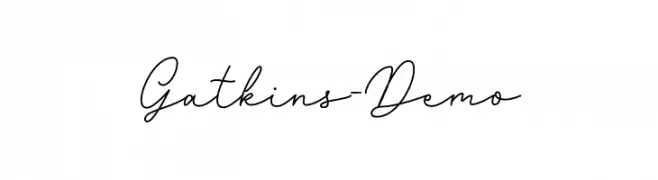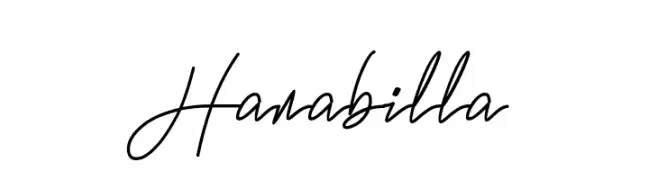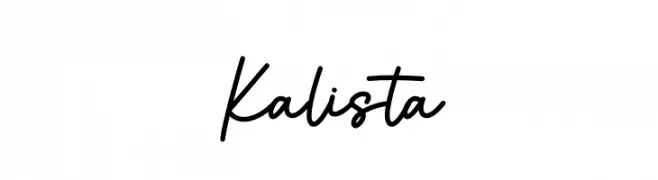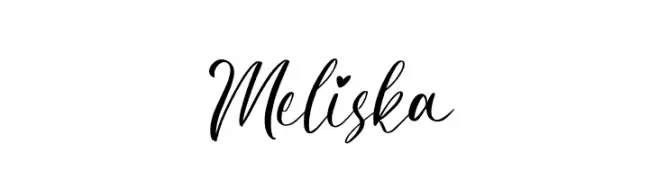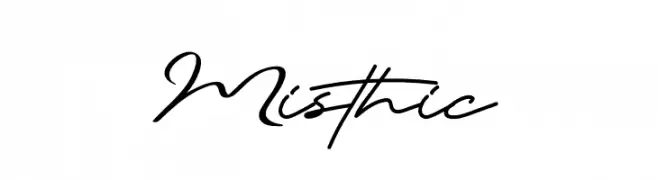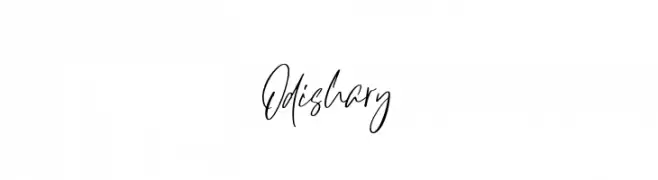
A fluid, cursive font with a natural handwriting style.
A lively, cursive font with a natural, handwritten feel.
A cursive, handwritten font with elegant, flowing lines and a natural feel.
A flowing, cursive font with a natural handwritten style.
A fluid and elegant script font with interconnected strokes, mimicking natural handwriting.
An elegant, flowing script font with natural handwriting style.
A smooth, flowing script font with a natural handwriting style.
A fluid, elegant script font with a natural handwritten style.
A graceful, cursive script font with a natural handwritten style.
A handwritten, cursive font with a natural and elegant flow.